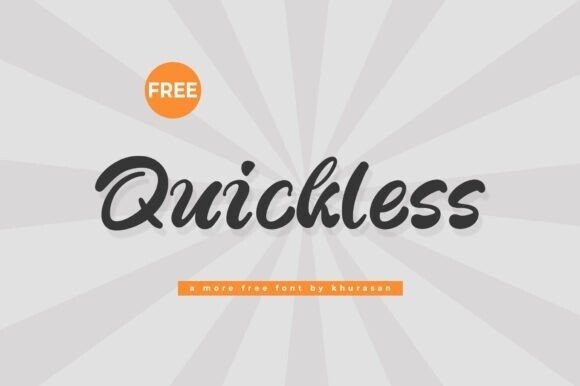
Quickless Font
Designer: Khurasan
Quickless is a modern and cute handwritten font perfect for posters, logos, magazines, book covers, banners, and many more! Get this amazing font, and use it to create lovely designs. It can easily be matched to an incredibly large set of projects, so add it to your creative ideas and notice how it makes them stand out!